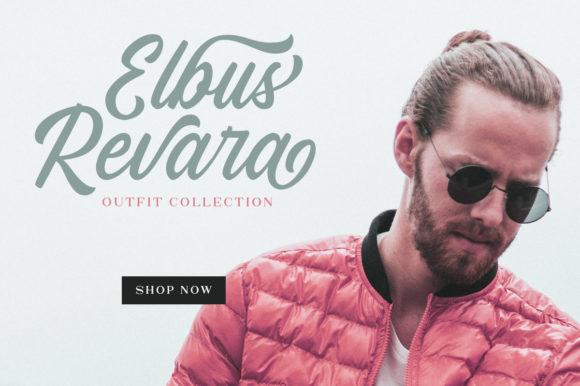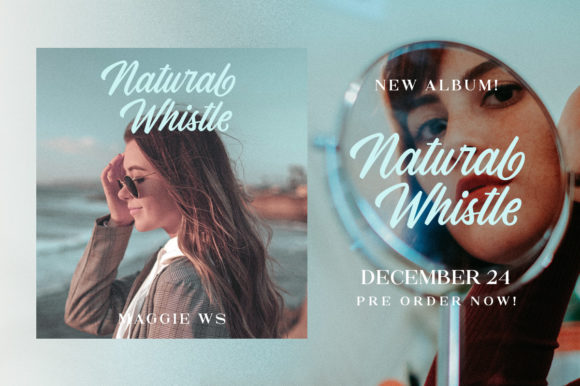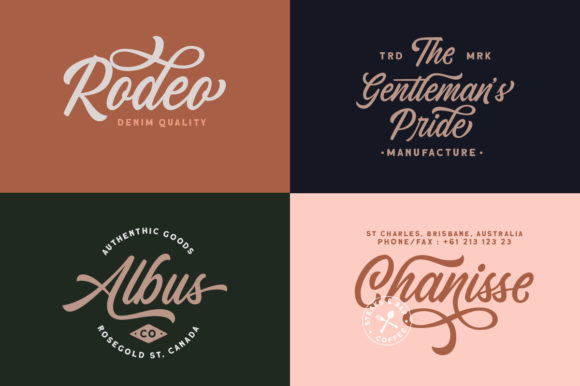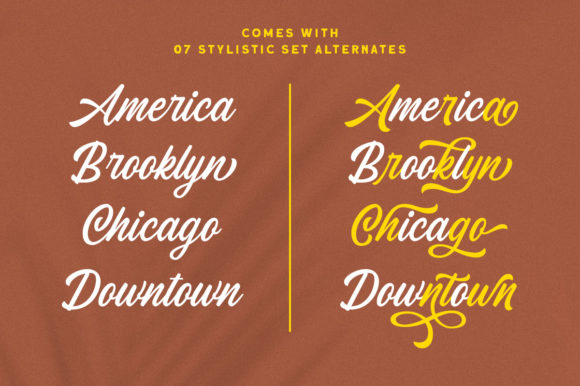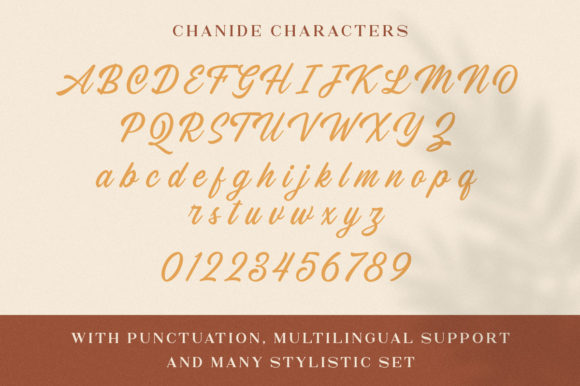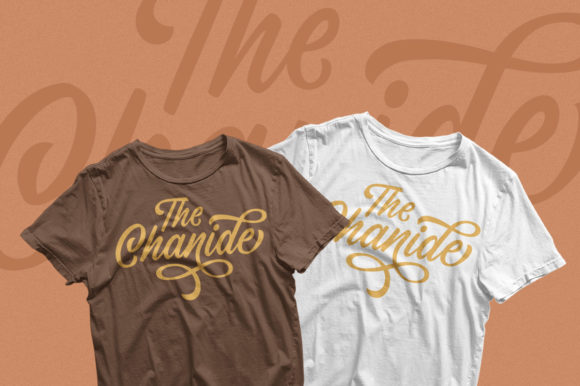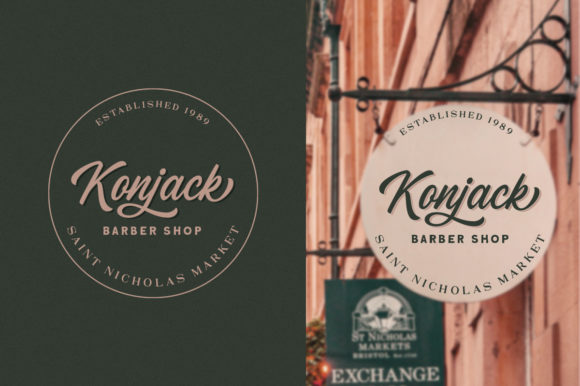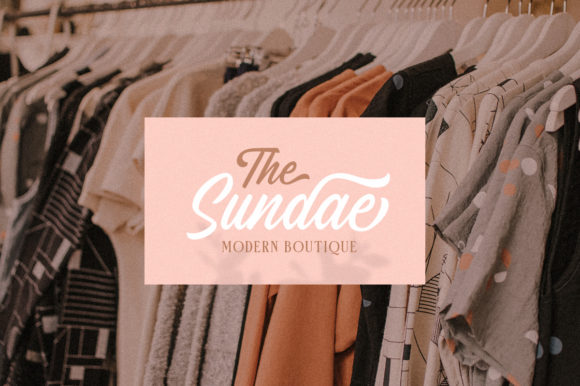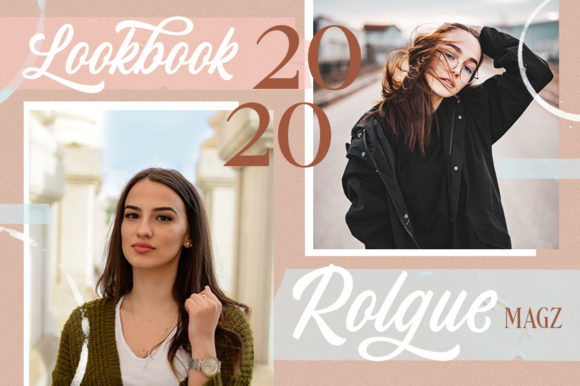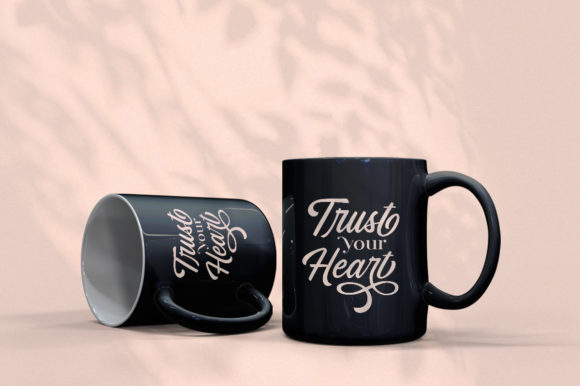
Chanide Font
About Chanide Font
Chanide is a stunning calligraphy script with an incredibly fancy feel. Use it to add a unique charm to your next creative idea!